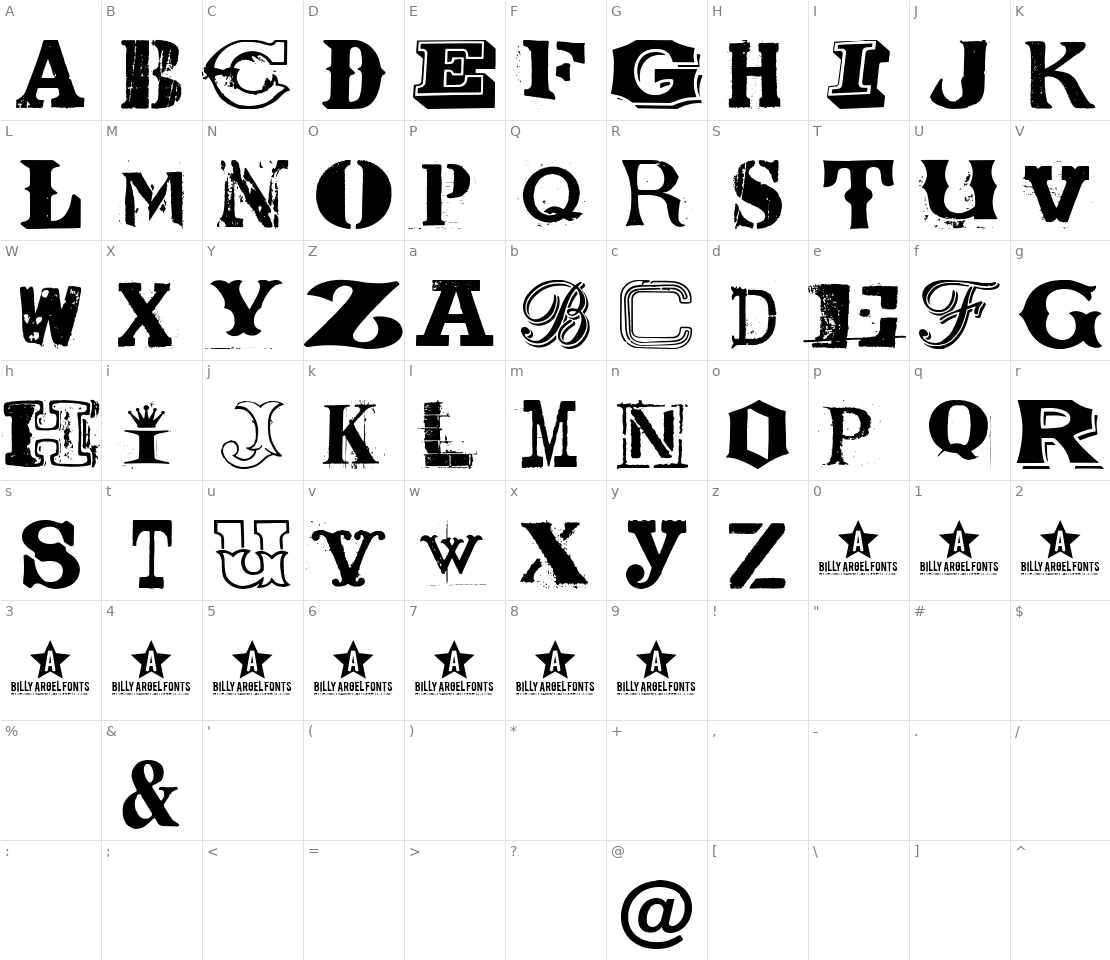
Coolector
Coolector is a bold, grungy display face from Billy Argel with a deliberately mismatched quality, mixing letterform styles and textures to create something that feels pieced together from old signage and worn print. The distressed edges and eclectic character shapes give it a scrappy, vintage poster energy that works well for headlines, packaging, and editorial layouts where a little visual chaos is the point.